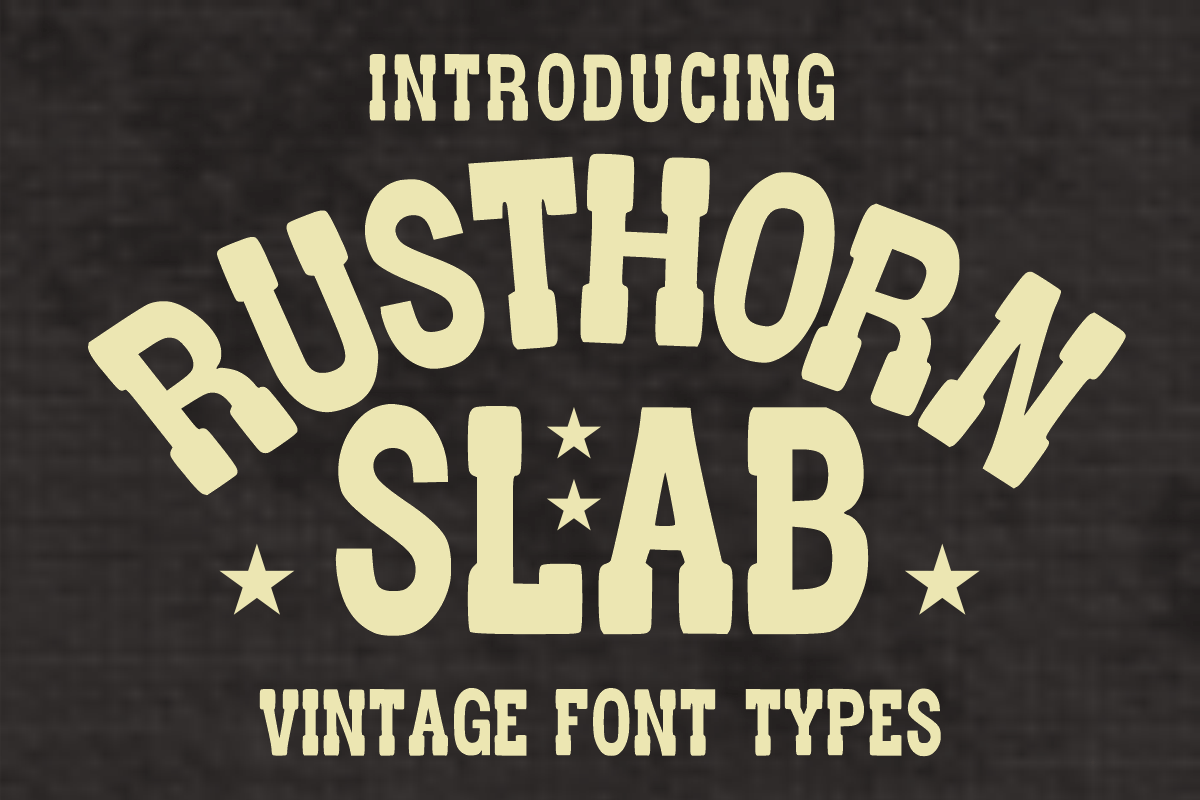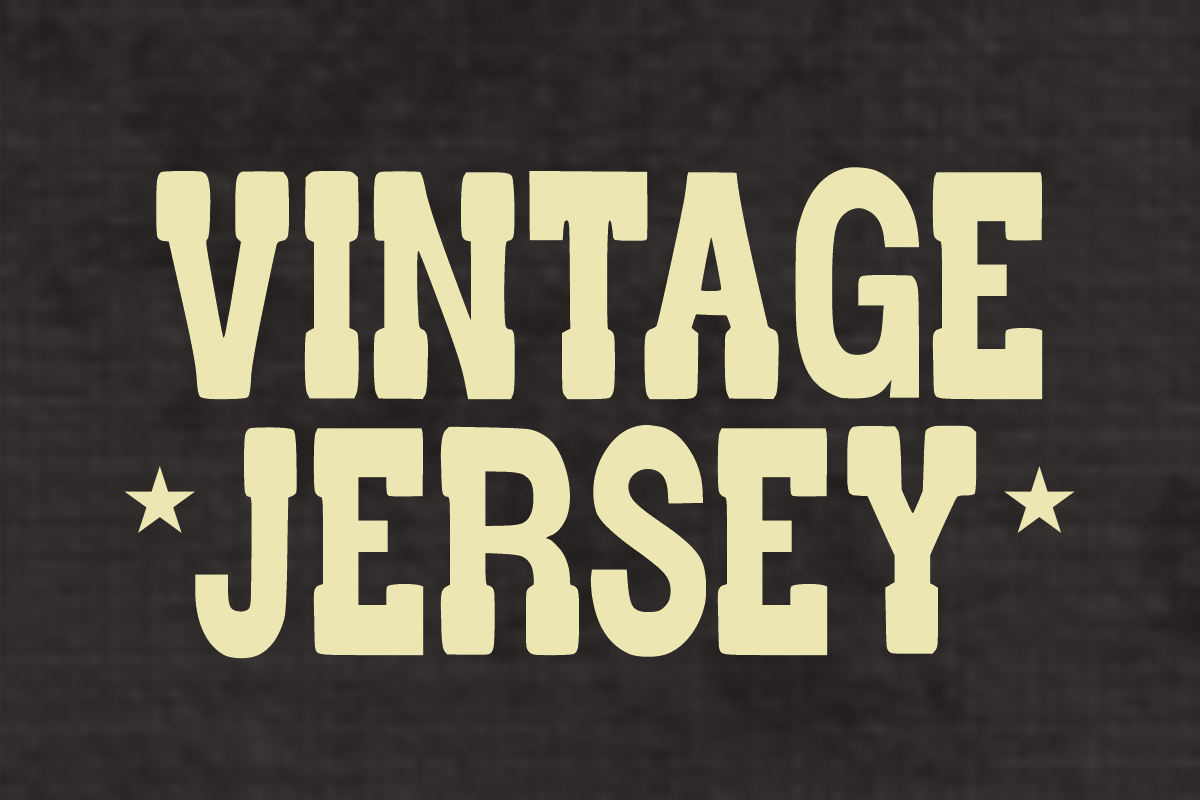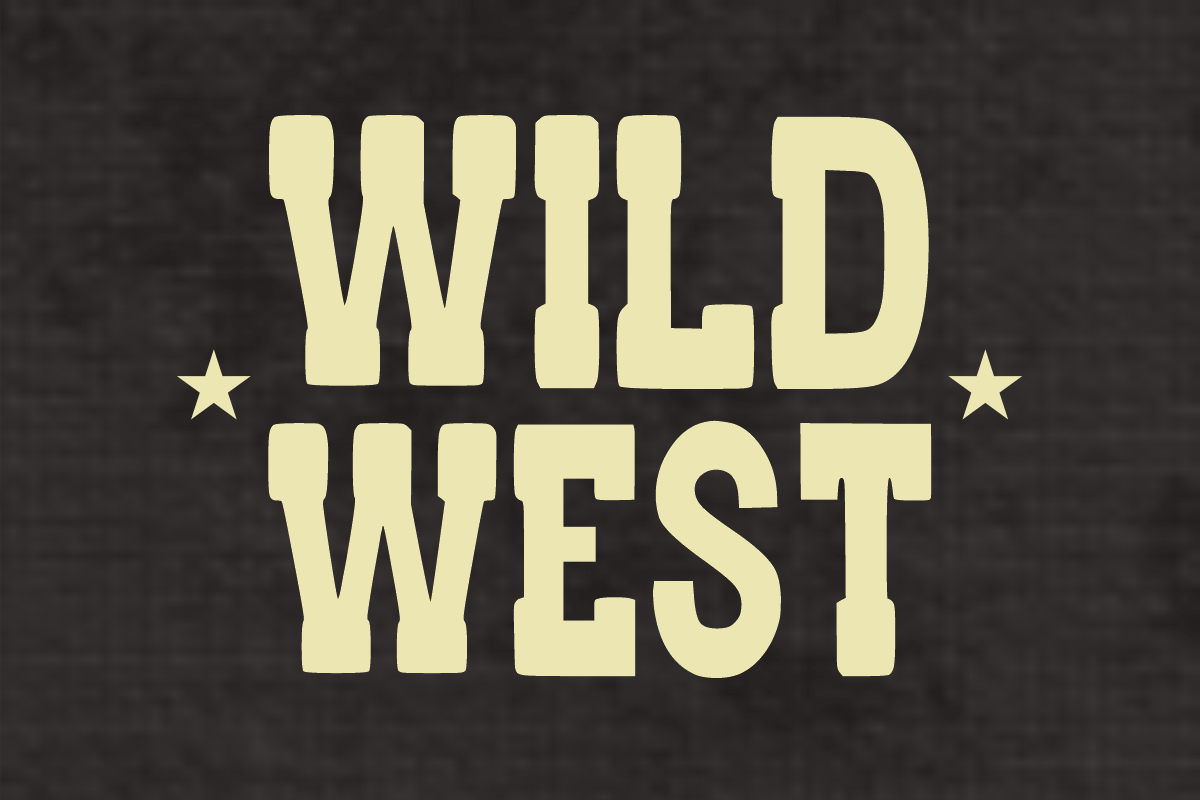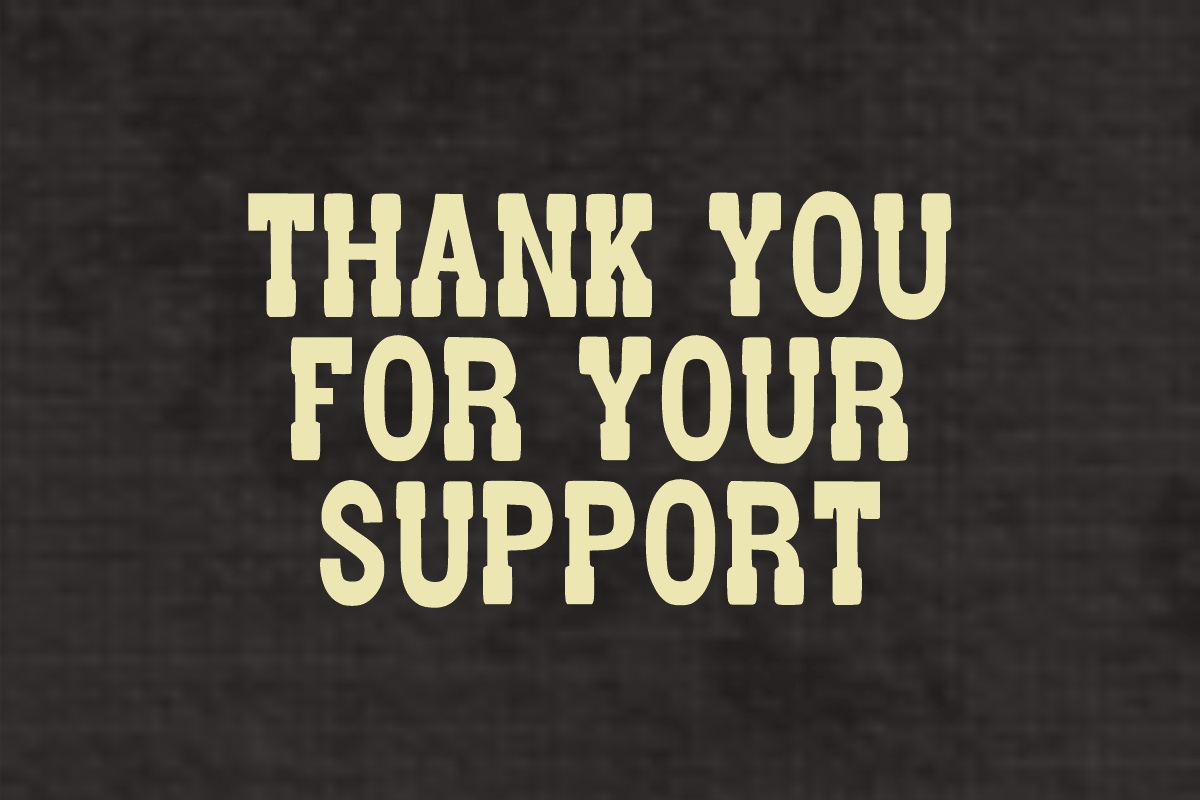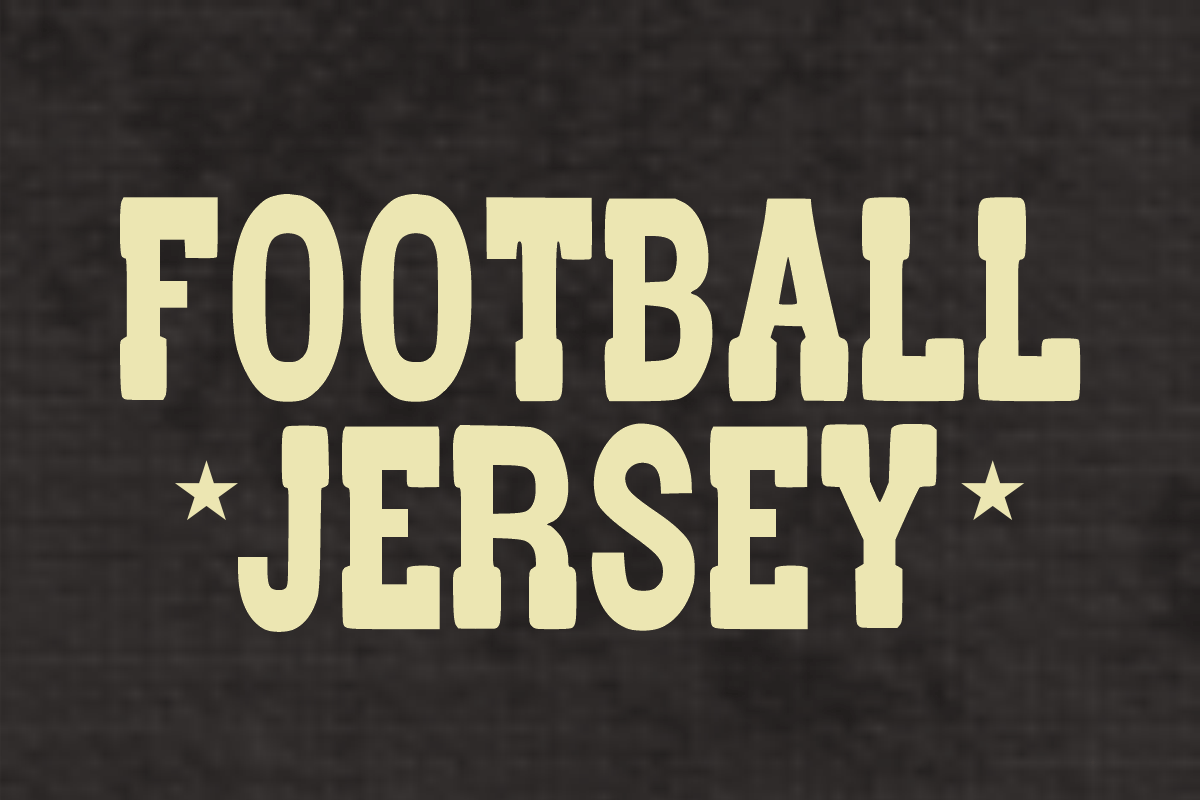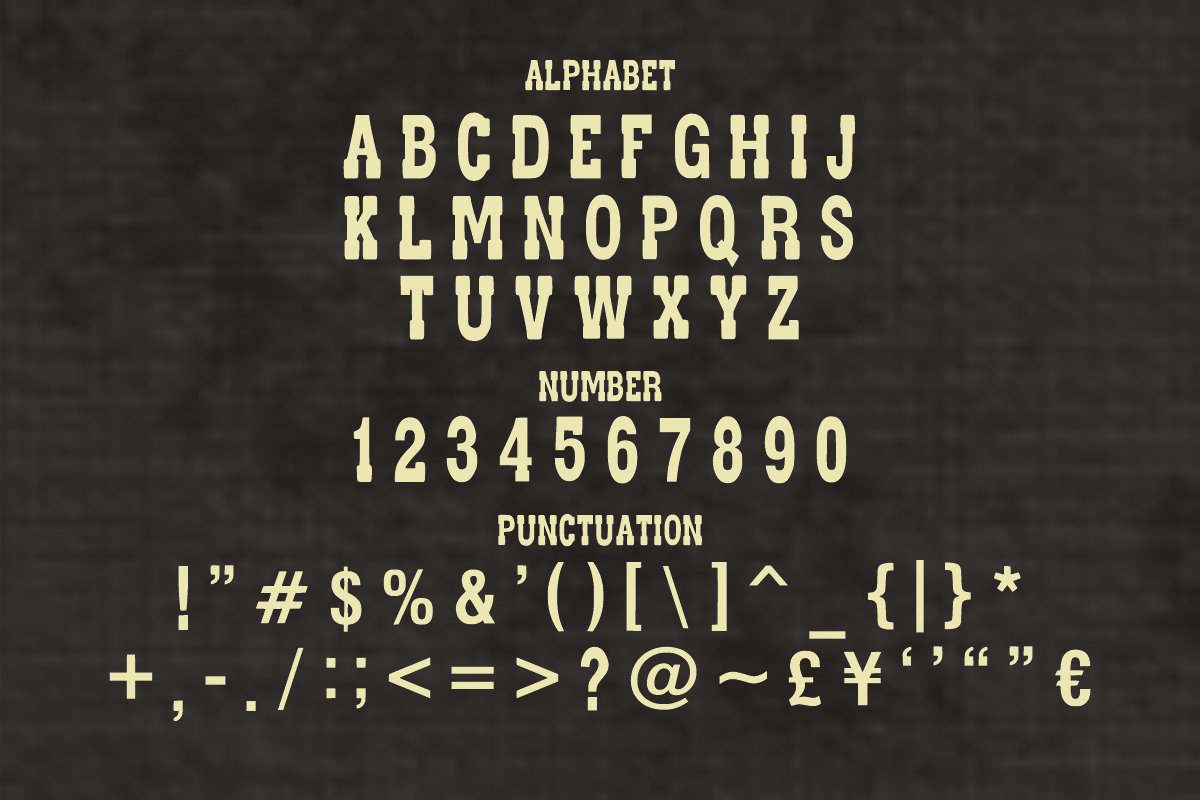
Rusthorn Slab - Vintage Font!
Looking to give your designs a powerful, nostalgic punch with a rugged yet clean aesthetic? Rusthorn Slab is a premium display font featuring bold block letters, strong slab serifs, and a unique touch of classic heritage charm. It beautifully blends old-school industrial vibes with modern streetwear trends!
It’s bold, solid, and carefully designed for creators who want their headlines to command attention with an authentic retro feel.
_ 🔠 _\Bold Uppercase Letters (A-Z)\\* – Solid slab characters full of vintage personality.
_ 🔢 _\Matching Numbers (0-9)\\* – Perfect for sports jersey years, retro dates, or prices.
_ 🔣 _\Simple Symbols & Punctuation\\* – Essential basics to wrap up your custom layouts.